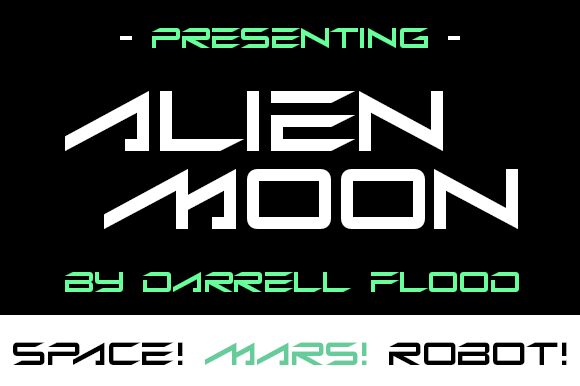
Alien Moon Italic
Alien Moon Italic font is an extended futuristic typeface designed by Darrell Flood.
For alternate (flipped) characters - A,M,W,V, please use uppercase.
For alternate (dotted) characters - O,Q, please use uppercase.